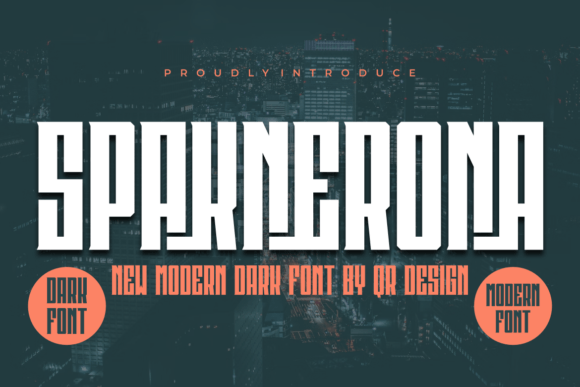
Introducing Spaknerona Font: The Ultimate Display Font for Bold Branding
Are you looking for a font that can add a touch of boldness and authenticity to your branding projects? Look no further than Spaknerona Font. This stunning display font is designed to make a statement, and its versatility makes it suitable for a wide range of applications, from logos and t-shirt printing to sports and more.
What is Spaknerona Font?
Spaknerona Font is a bold and authentic display font that is designed to grab attention. Its unique and striking design makes it perfect for branding projects that require a font that can stand out from the crowd. Whether you’re looking to create a logo, print t-shirts, or design sports-related materials, Spaknerona Font is the perfect choice.
Key Features of Spaknerona Font
So, what makes Spaknerona Font so special? Here are some of its key features:
- Bold and Authentic Design: Spaknerona Font has a bold and authentic design that is sure to grab attention.
- Versatile: This font is suitable for a wide range of applications, from logos and t-shirt printing to sports and more.
- Easy to Read: Despite its bold design, Spaknerona Font is easy to read, making it perfect for use in a variety of contexts.
- Unique and Striking: Spaknerona Font has a unique and striking design that is sure to make your branding projects stand out.
Uses of Spaknerona Font
Spaknerona Font is a versatile font that can be used in a wide range of contexts. Here are some of the ways you can use Spaknerona Font:
- Logo Design: Spaknerona Font is perfect for logo design, thanks to its bold and authentic design.
- T-Shirt Printing: This font is also great for t-shirt printing, making it perfect for creating custom apparel.
- Sports: Spaknerona Font is a great choice for sports-related branding projects, such as team logos and jerseys.
- Advertising: This font can also be used in advertising, thanks to its bold and attention-grabbing design.
Benefits of Using Spaknerona Font
So, why should you use Spaknerona Font for your branding projects? Here are some of the benefits of using this font:
- Increased Visibility: Spaknerona Font is designed to grab attention, making it perfect for branding projects that require increased visibility.
- Improved Brand Recognition: This font can help improve brand recognition, thanks to its unique and striking design.
- Versatility: Spaknerona Font can be used in a wide range of contexts, making it a versatile addition to your branding toolkit.
- Easy to Use: This font is easy to use and can be easily integrated into your branding projects.
Tips for Using Spaknerona Font
Here are some tips for using Spaknerona Font:
- Use it Boldly: Spaknerona Font is designed to be used boldly, so don’t be afraid to experiment with different font sizes and styles.
- Pair it with Other Fonts: This font can be paired with other fonts to create a unique and striking design.
- Experiment with Colors: Spaknerona Font can be used with a variety of colors, so experiment with different color schemes to find the one that works best for your branding project.
In conclusion, Spaknerona Font is a bold and authentic display font that is perfect for branding projects that require a font that can stand out from the crowd. Its versatility, ease of use, and unique design make it a great choice for a wide range of applications, from logos and t-shirt printing to sports and more. So, if you’re looking for a font that can add a touch of boldness and authenticity to your branding projects, look no further than Spaknerona Font.
- What is Spaknerona Font?: Spaknerona Font is a bold and authentic display font designed for branding projects.
- What is Spaknerona Font used for?: Spaknerona Font can be used for a wide range of applications, including logos, t-shirt printing, sports, and more.
- Is Spaknerona Font easy to read?: Yes, despite its bold design, Spaknerona Font is easy to read.